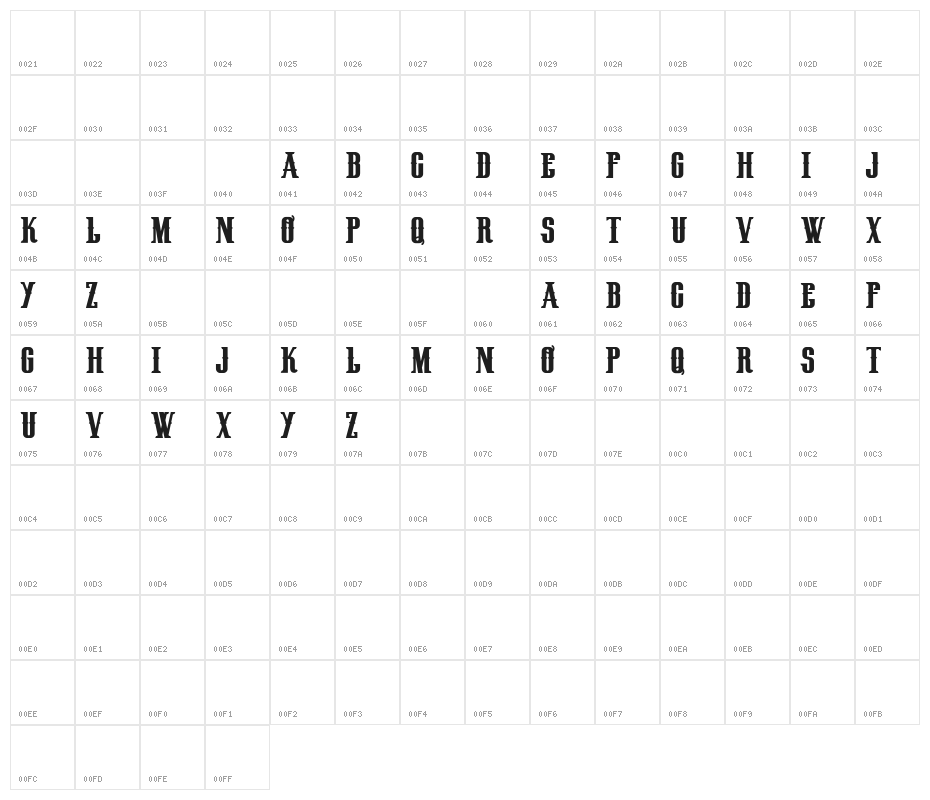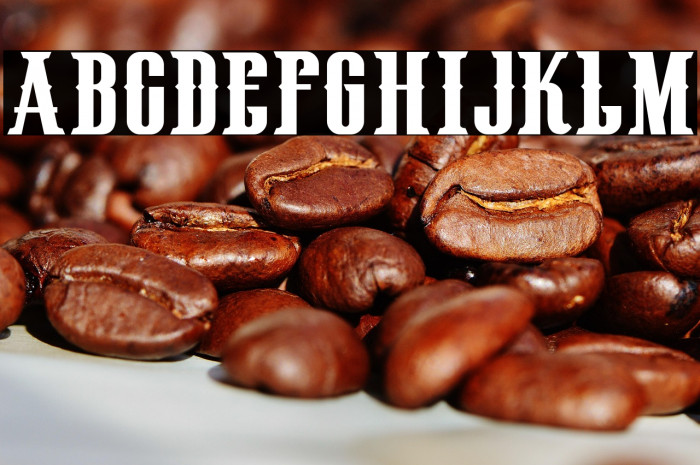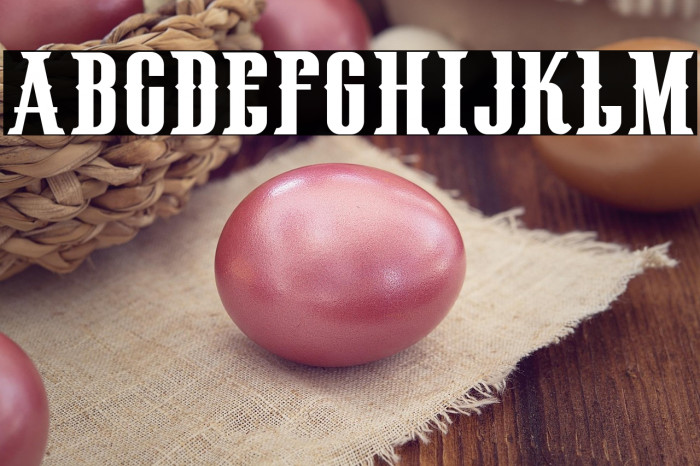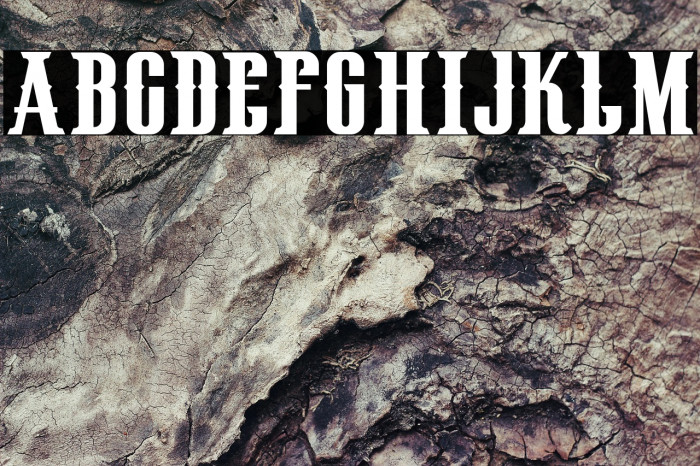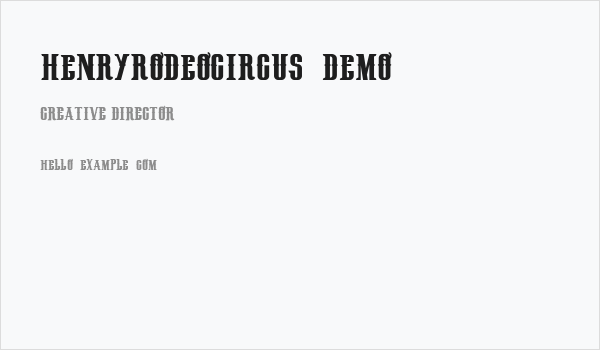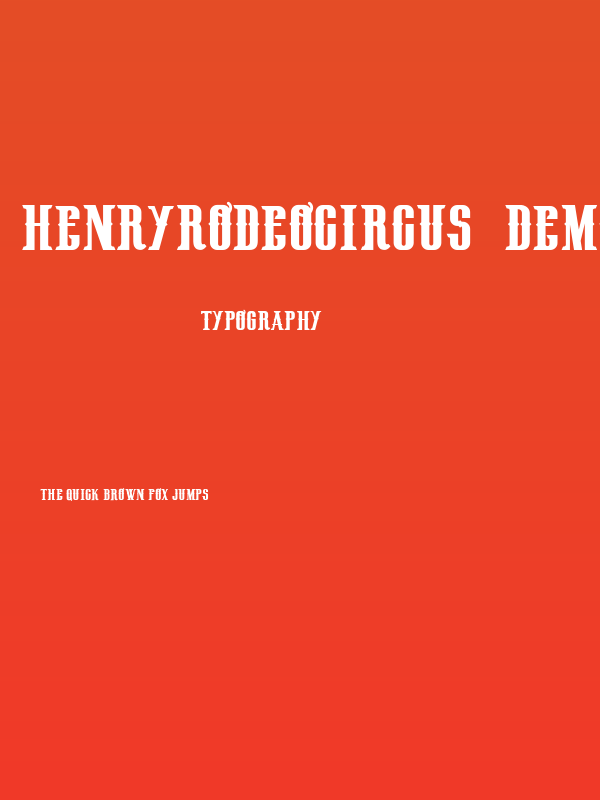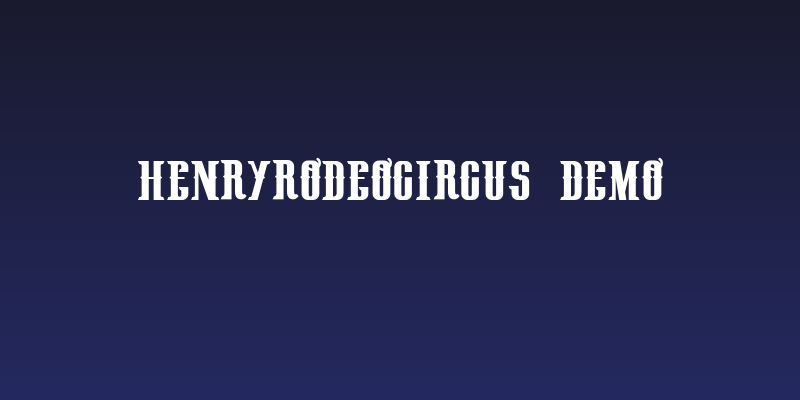
HenryRodeoCircus_demo Font
HenryRodeoCircus_demo Description
This font features a bold and striking design with a strong, decorative flair. The characters are crafted with thick, consistent strokes that give them a robust and commanding presence. Each letter is adorned with unique, ornamental serifs that add a touch of vintage elegance, reminiscent of classic circus or rodeo posters. The uppercase letters are particularly prominent, with a uniform height and width that ensures readability while maintaining an artistic style. The font's design is both playful and authoritative, making it suitable for projects that require a bold statement.
Overall StyleVintage